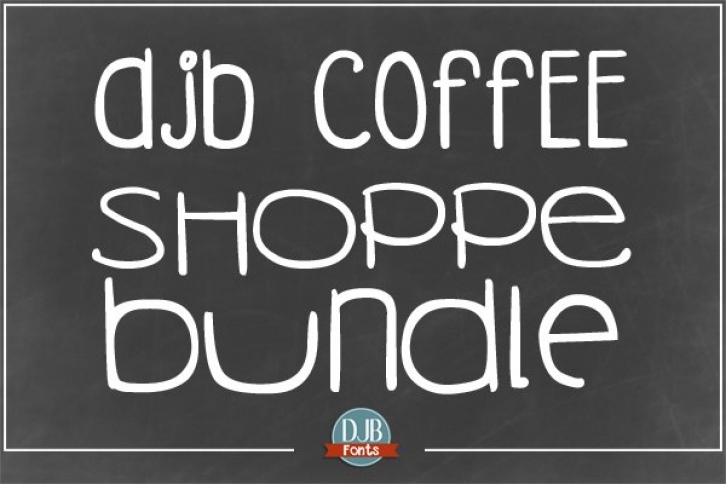
DJB Coffee Shoppe Font Bundle -- three 'unicase' fonts with Shawna Clingerman.
These fonts contains a single case alphabet, numbers, punctuation, and interntional language glyphs.